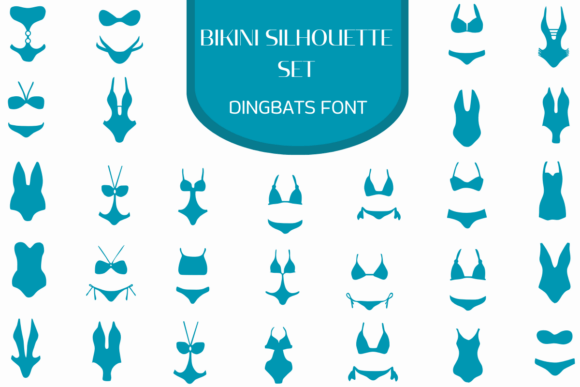
Introduction to Bikini Silhouette Set Font
Dive into summer vibes with the Bikini Silhouette Set font, a playful and stylish dingbat collection designed for beach lovers and fashion enthusiasts alike.
This unique Bikini Silhouette Set typeface transforms your keyboard into a wardrobe of trendy swimwear, featuring everything from classic two-pieces to modern monokinis Perfect for summer sale flyers, pool party invitations, or tropical-themed social media graphics, this Bikini Silhouette Set font offers a clean and minimalist aesthetic that scales perfectly for high-resolution projects.
Key Features of Bikini Silhouette Set Font
Why Choose Bikini Silhouette Set Font?
Bikini Silhouette Set Font offers exceptional quality and versatility, making it a valuable addition to your design toolkit. Whether you’re creating for personal projects or commercial use, Bikini Silhouette Set Font delivers professional results.